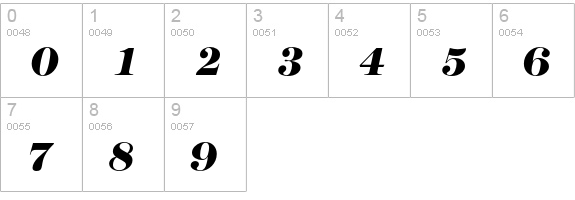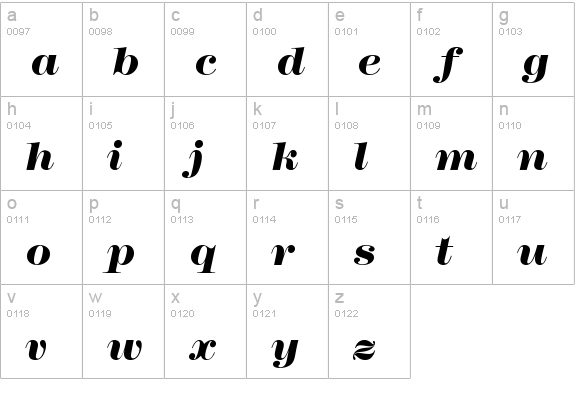
ModernNo216EF-HeavyItalic is a bold and striking font that exudes a sense of modernity and sophistication. With its heavy italic style, this font is perfect for making a strong statement in your designs. The sleek and elegant curves of each letter add a touch of flair and creativity to any project. What's even better is that ModernNo216EF-HeavyItalic is available for free download at FontsMarket.com. This means you can easily access this stunning font and use it in your personal or commercial projects without any cost. Take advantage of this opportunity to elevate your designs and make a lasting impression with ModernNo216EF-HeavyItalic.